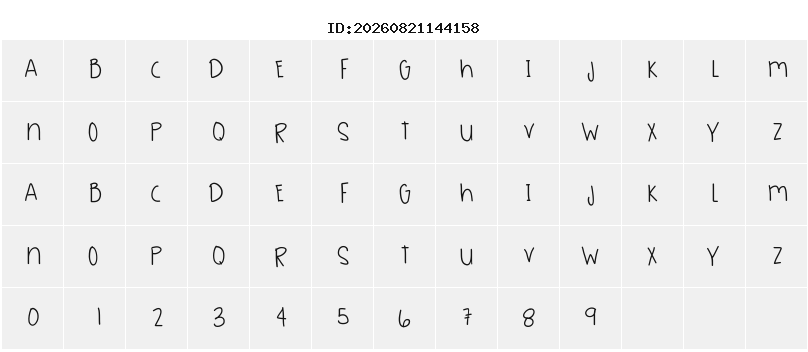
• Font Name: SeaGreen
• Full Font Name: SeaGreen
SeaGreen.ttf is a modern, elegant sans-serif font designed for ultimate readability and visual harmony. Perfect for branding, headlines, web design, and print materials.